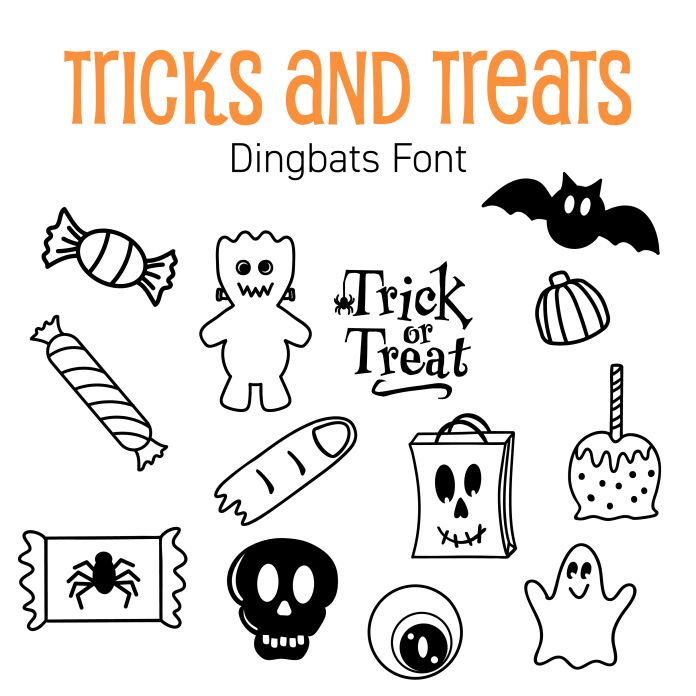
Get sweet and spooky with this playful Tricks and Treats Halloween Dingbat Font! This collection includes 26 hand-drawn Halloween icons, perfect for candy lovers and trick-or-treat fun. You'll find cupcakes, wrapped sweets, jack-o'-lantern buckets, candy apples, ghosts, monsters, lollipops, eyeballs, skeleton treats, and even creepy crawlies—all in a clean and whimsical line-art style.